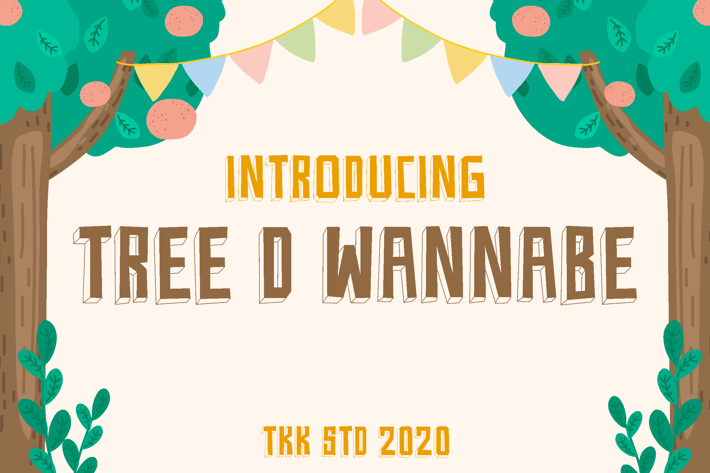
Tree D Wannabe - Kids Block Font
Tree D Wannabe
Tree D Wannabe is a blocky, geometric kids display font with a rugged, hand-crafted charm. Its tall uppercase letters feel confident yet friendly—designed with softened terminals and equalized proportions for playful readability. The font’s woodsy, bold aesthetic makes it feel like it grew right out of the forest, making it perfect for nature-inspired educational materials, adventure-themed branding, and character-driven children's stories.
This typeface mixes organic tone with a clear and structured layout, making it both expressive and approachable for young audiences, eco-conscious creators, or anyone who wants earthy warmth in their typographic choices.
Ideal for everything from dinosaur-themed museum signage to learning posters, STEM event invites, and organic product labels, Tree D Wannabe helps brands express curiosity, discovery, and growth. Teachers, content creators, and nature educators will love its kid-safe forms and attention-holding appearance. Its whimsical shape encourages interaction while offering legibility across print and digital materials.
From science fair booths to YouTube thumbnails for outdoor learning, this font turns every letter into an imaginative experience.
Key Features
✔ Nature-Inspired Character
- Combines strong straight lines with grounded visual balance—great for “green” themes and learning content.
✔ Ideal for All Ages
- Perfectly legible from toddlers to teens, thanks to clear spacing and bold construction.
✔ Design-Ready
- Looks incredible on packaging, posters, activity books, YouTube graphics, and DIY kids' materials.
✔ Engaging Yet Practical
- Its playful tone helps grab attention while staying structured enough for informative messages.